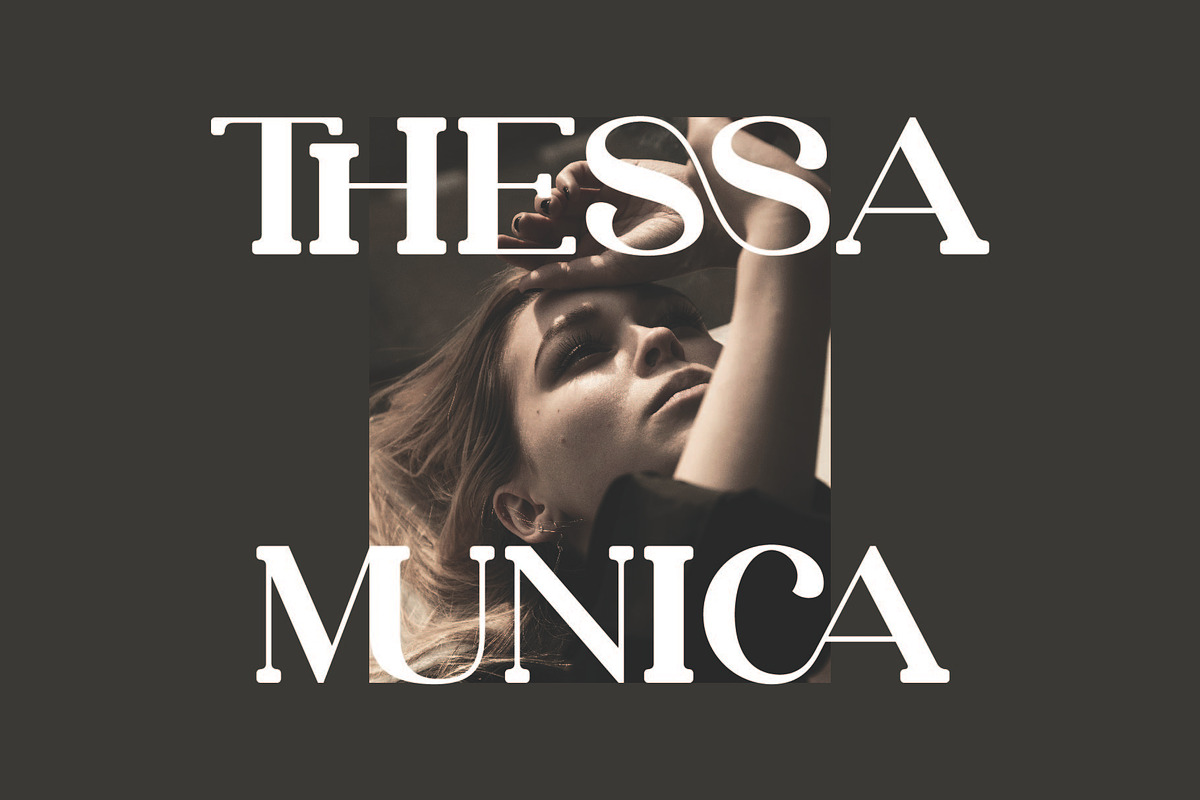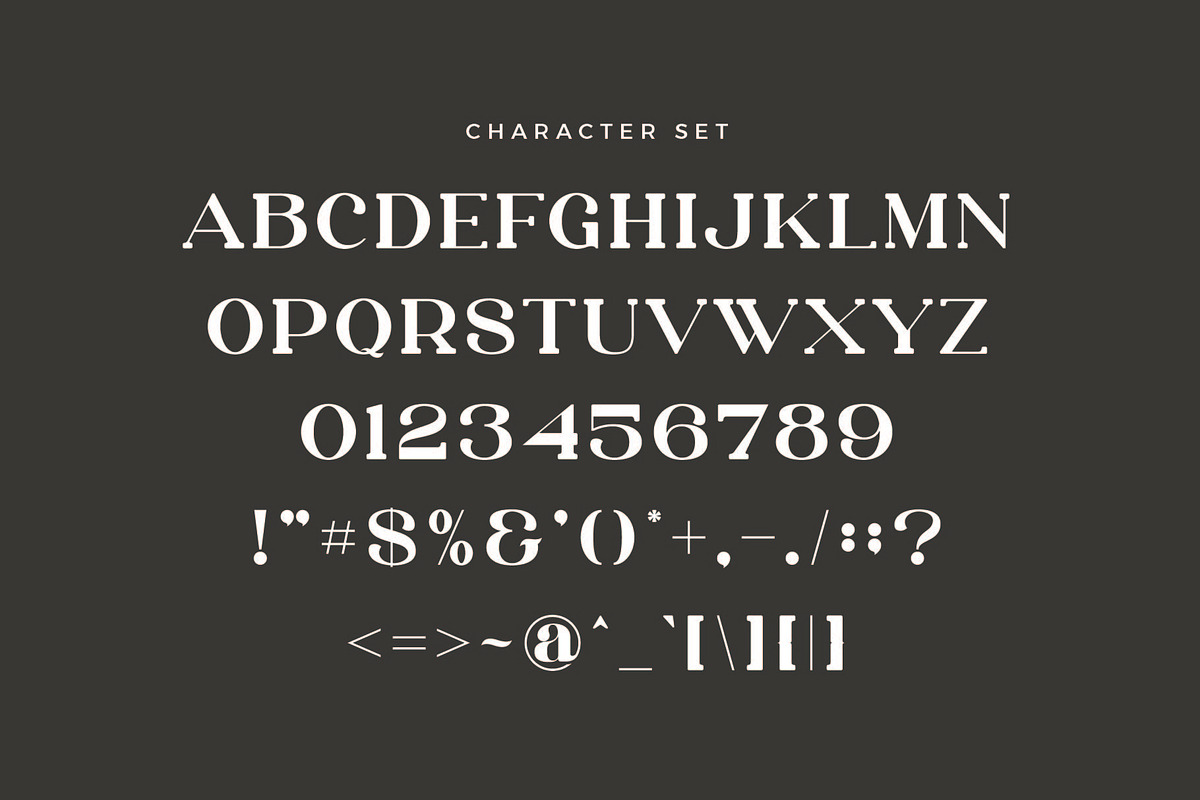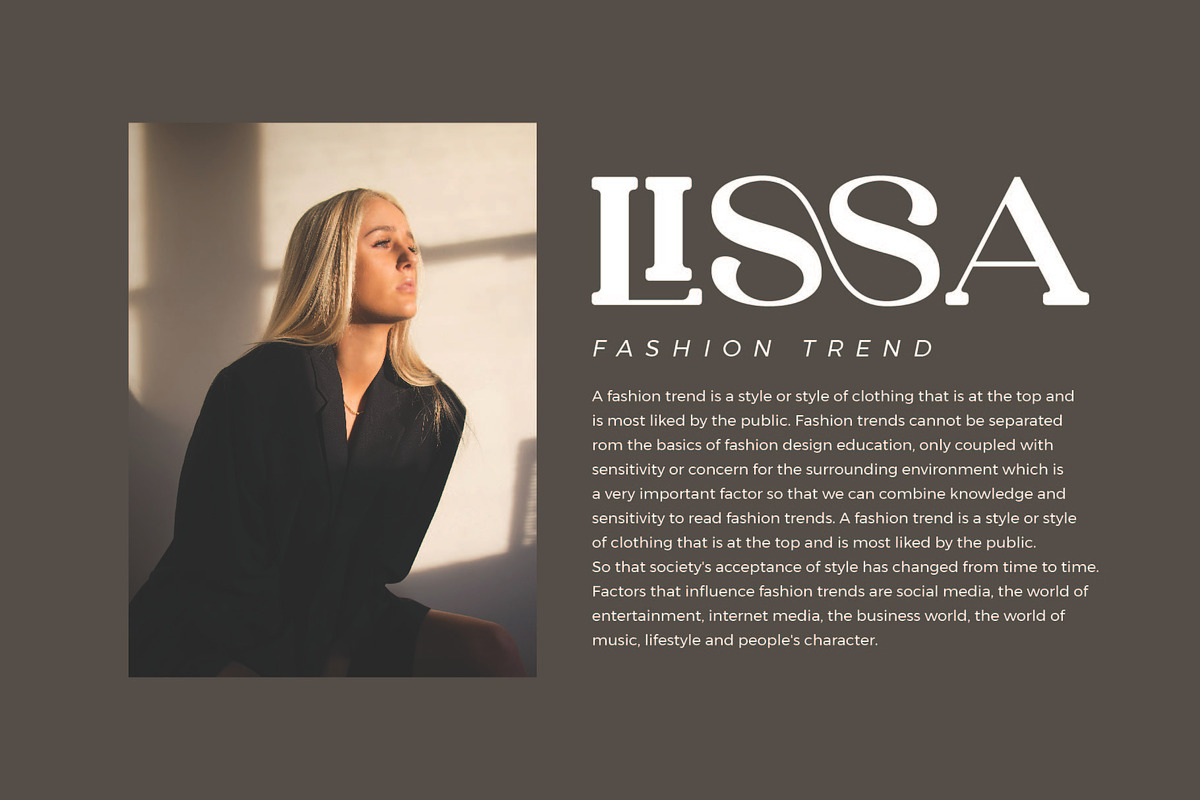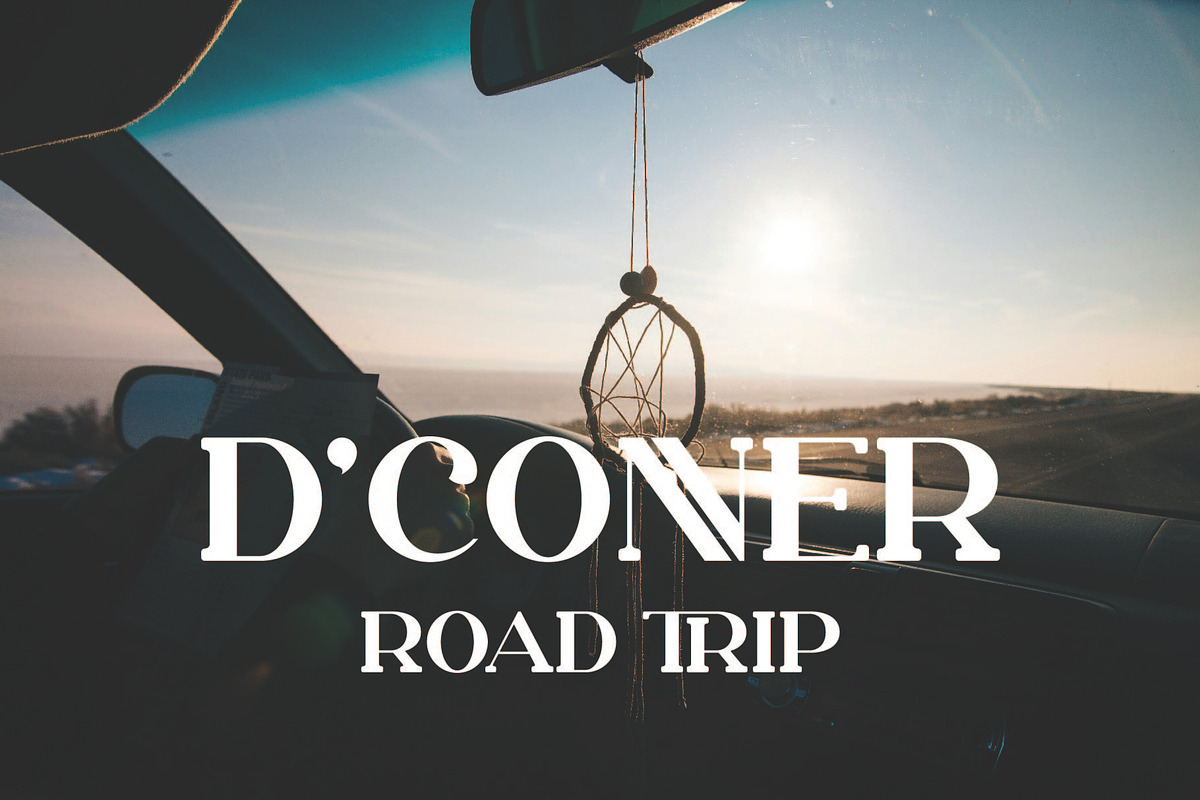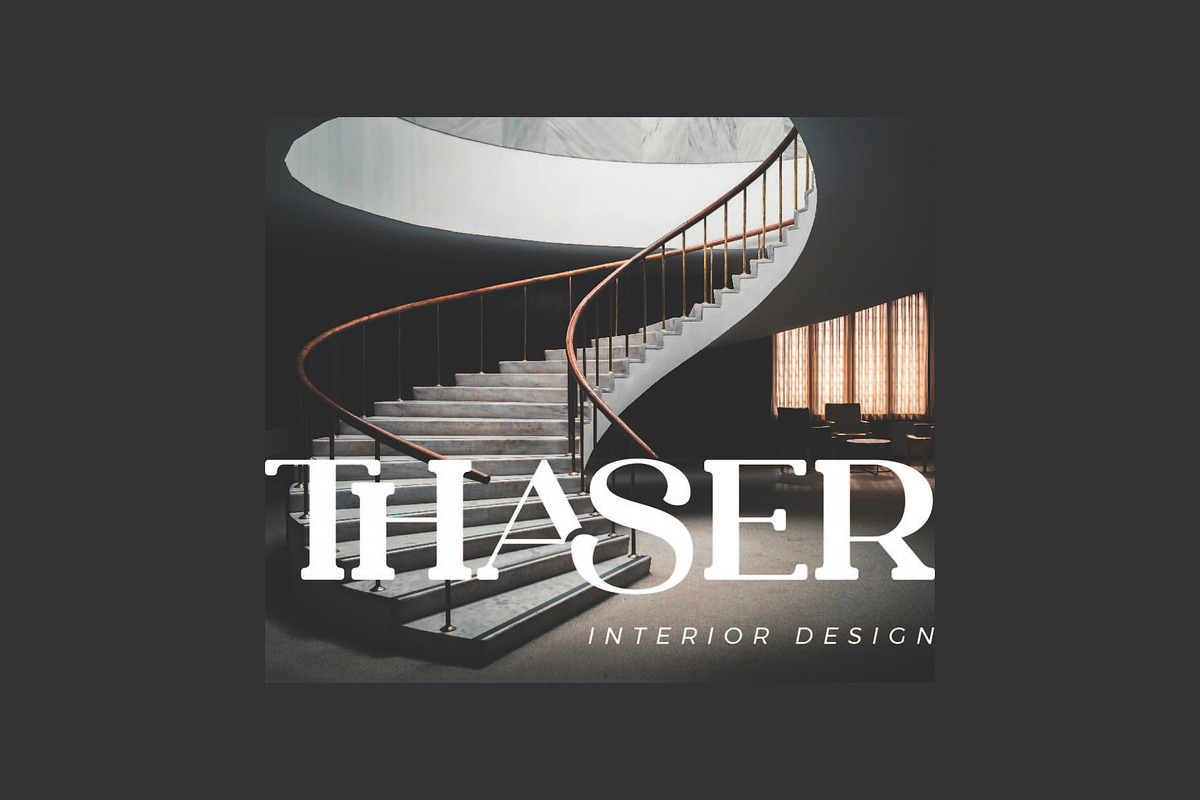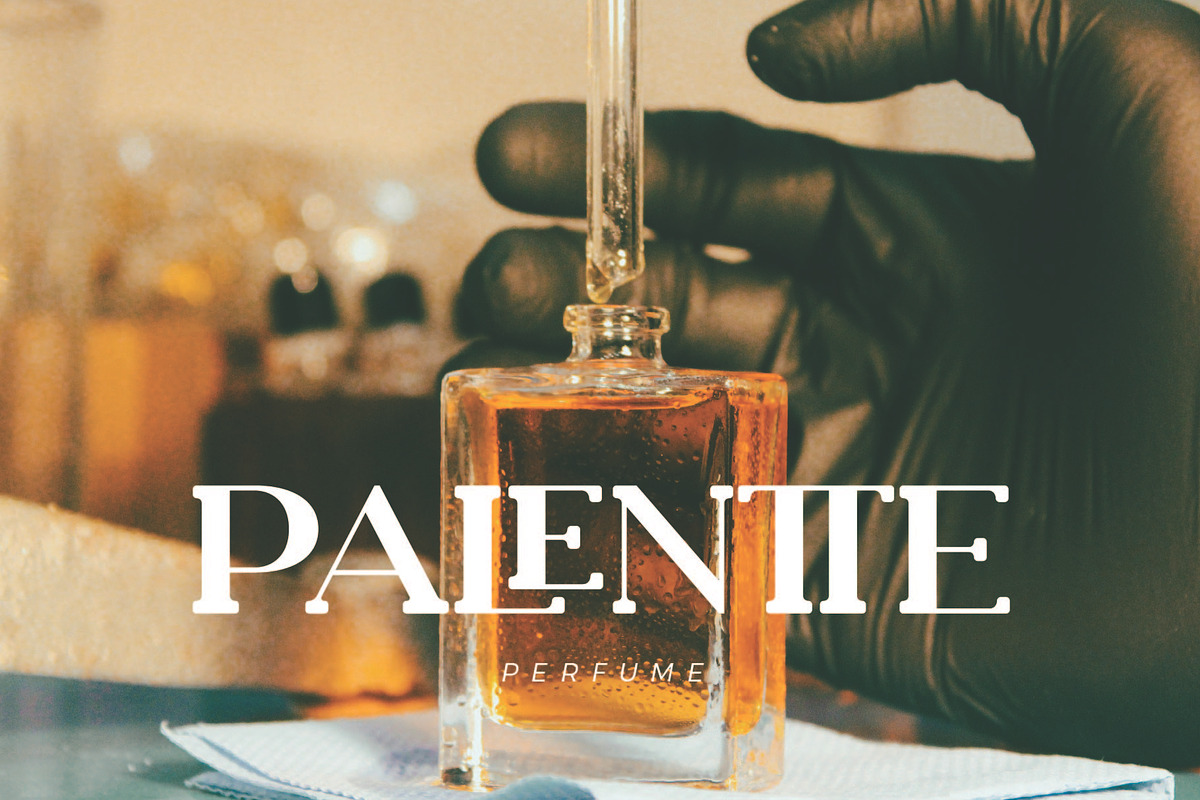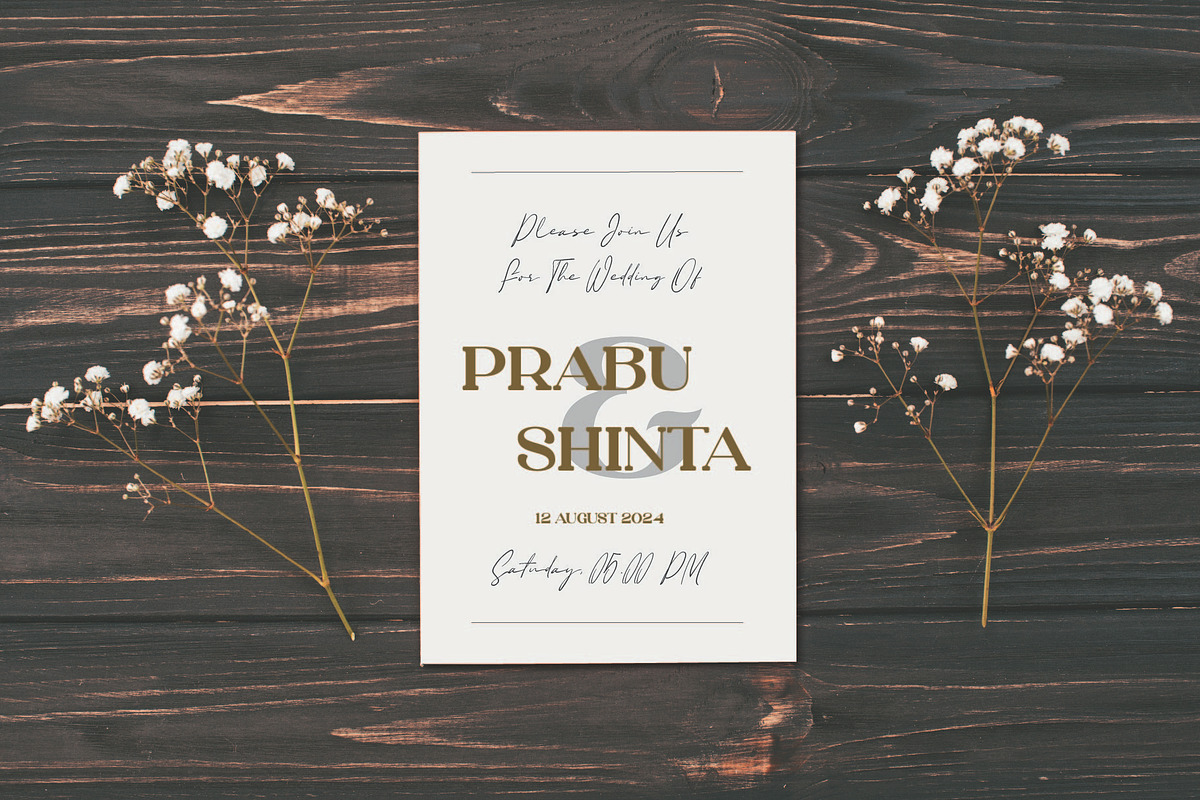
Jason - Modern Serif Font
Jason Stylish Ligature Typeface, inspired by the famous minimalist logo perfect for the purposes of designing templates, brochures, videos, advertising branding, logos and more.
Jason - Modern Serif Font by AqeelArt fits naturally into Branding, posters, packaging, typography.